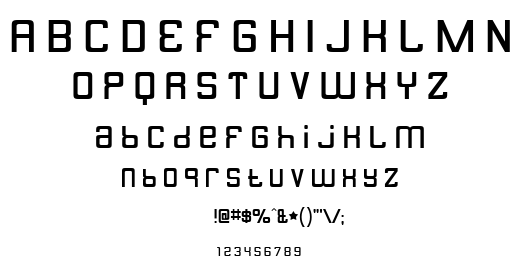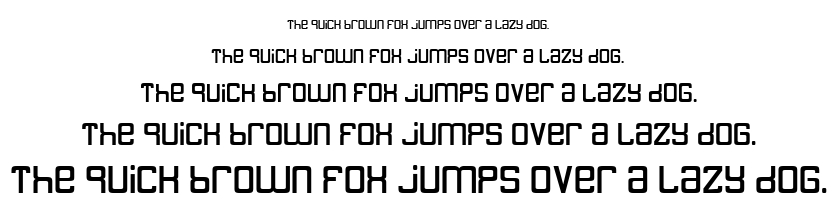
This modular font is part of Typodermic Fonts’ Larabie Fonts collection and it’s free for commercial use. Don’t forget to read the files inside the zip for details. Updated in 2010.